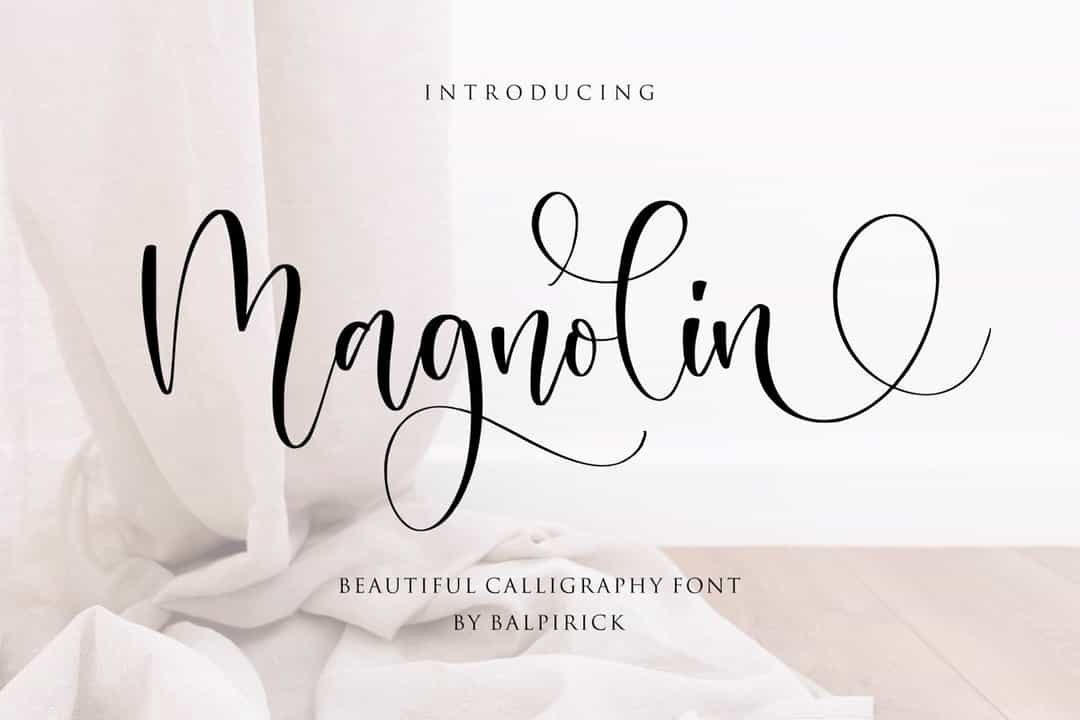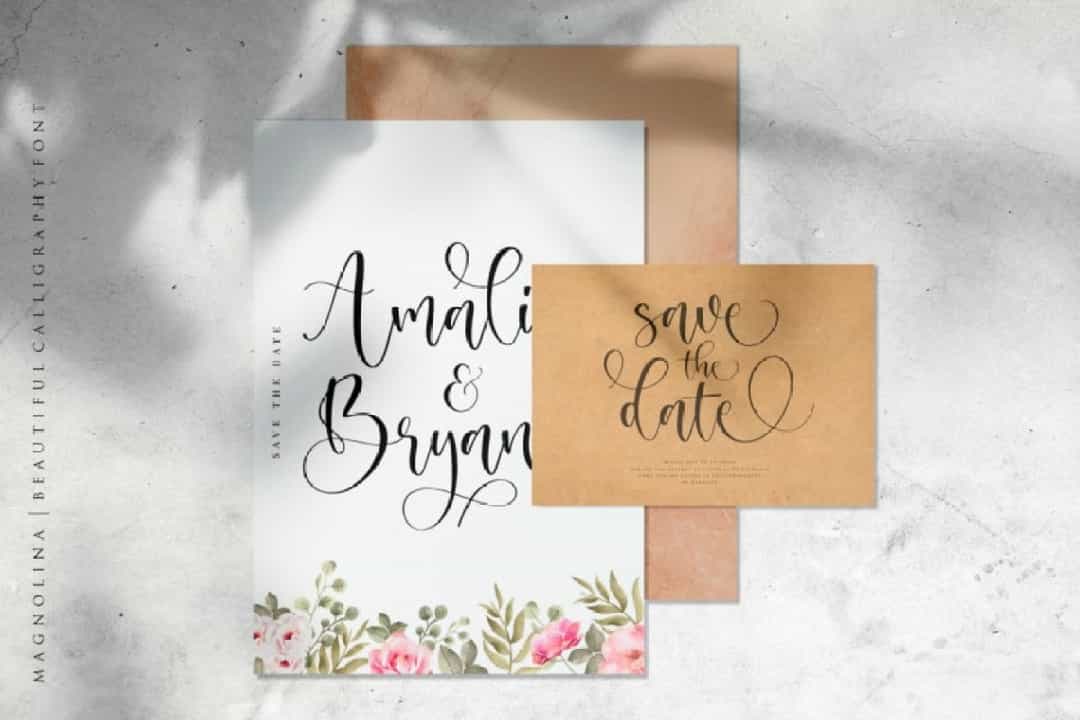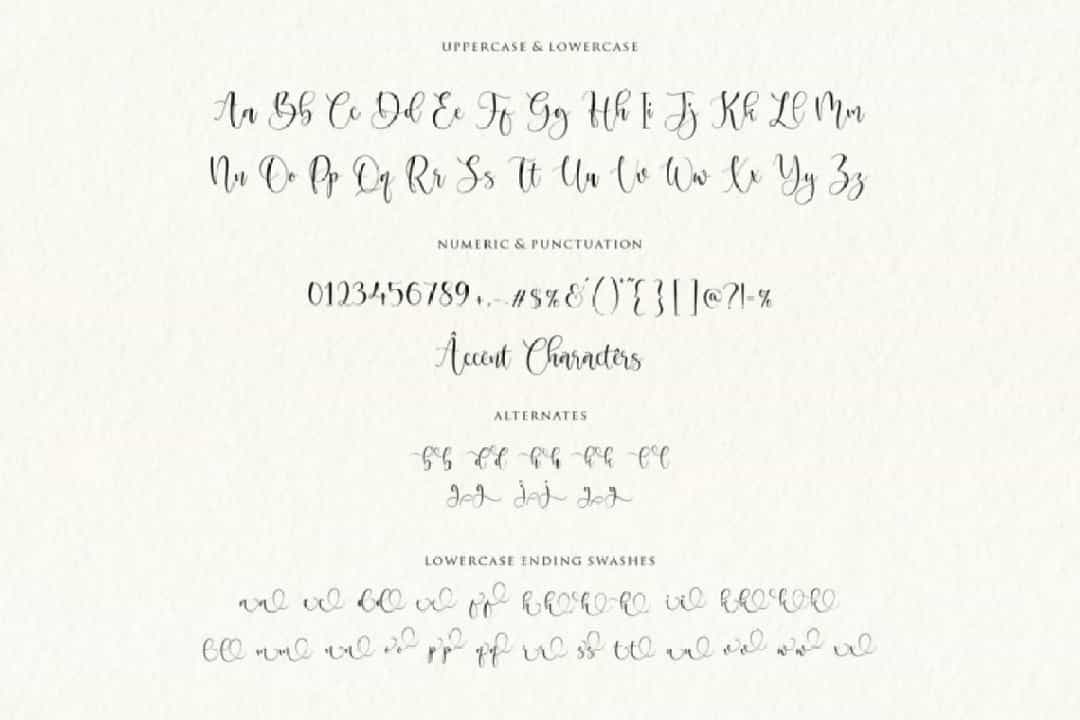
Magnolin is an elegant and a romantic font that is based on calligraphy and the characters are moving. The PUA encoded allows you access all the glyphs of this font type, and swashes for easy and appropriate font usage. Before you engage in creating master pieces with it, it will leave you in awe of its versatility!